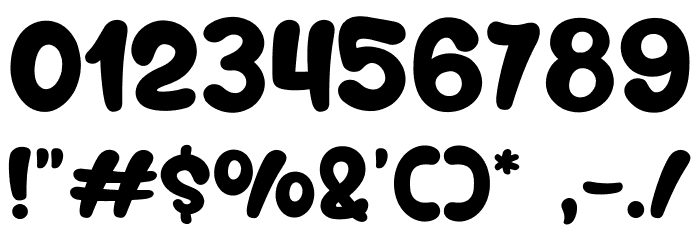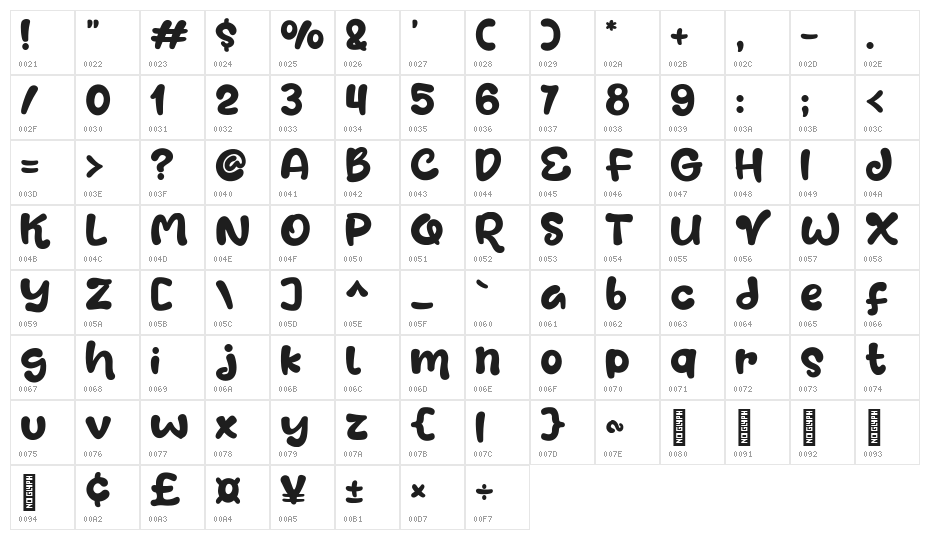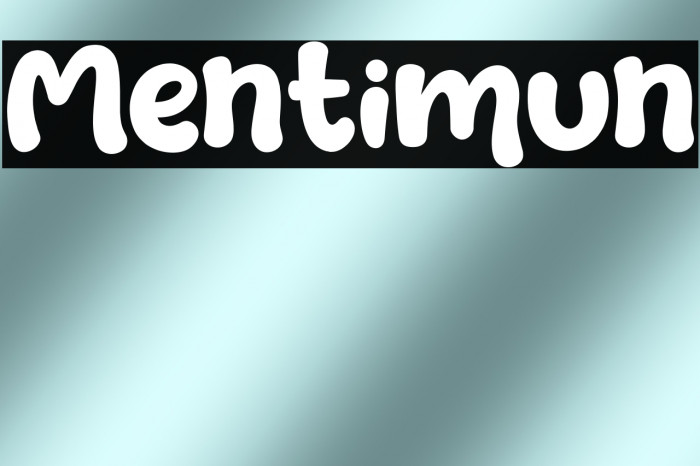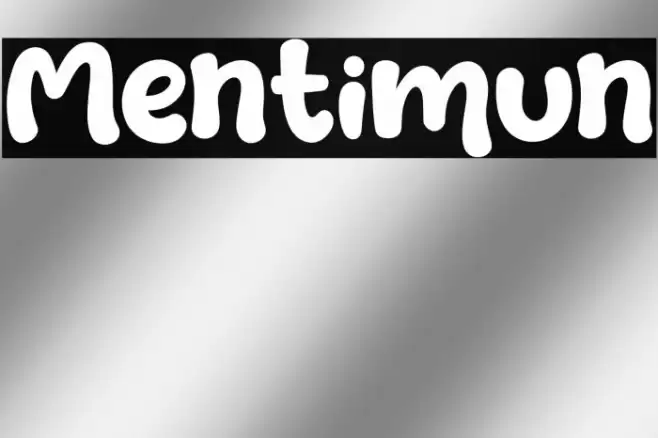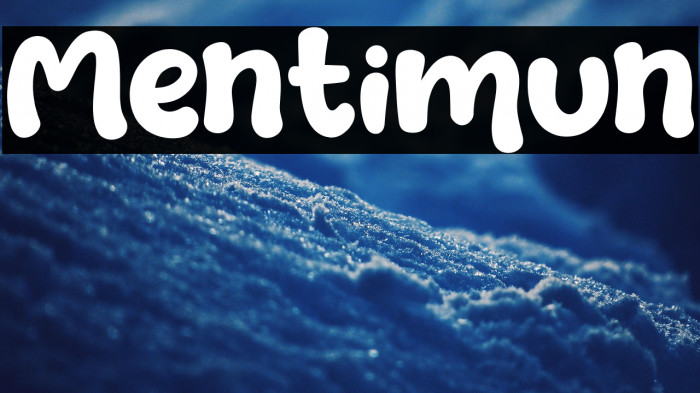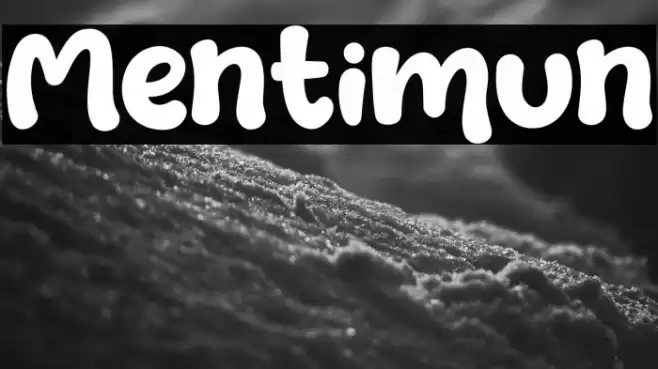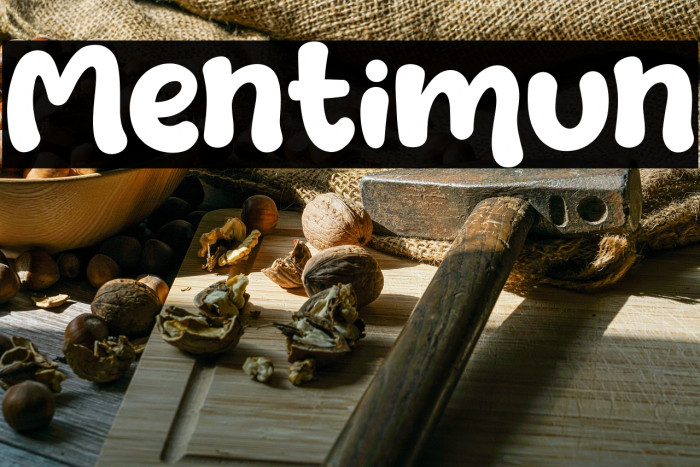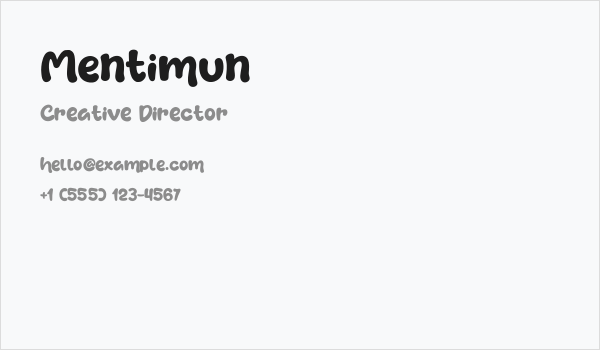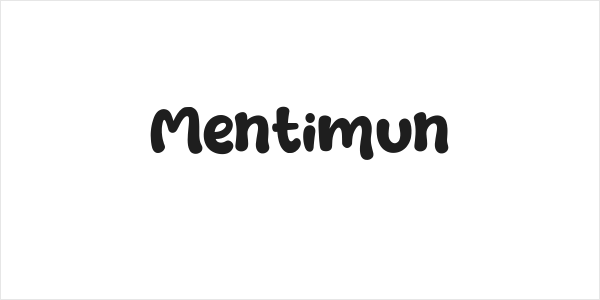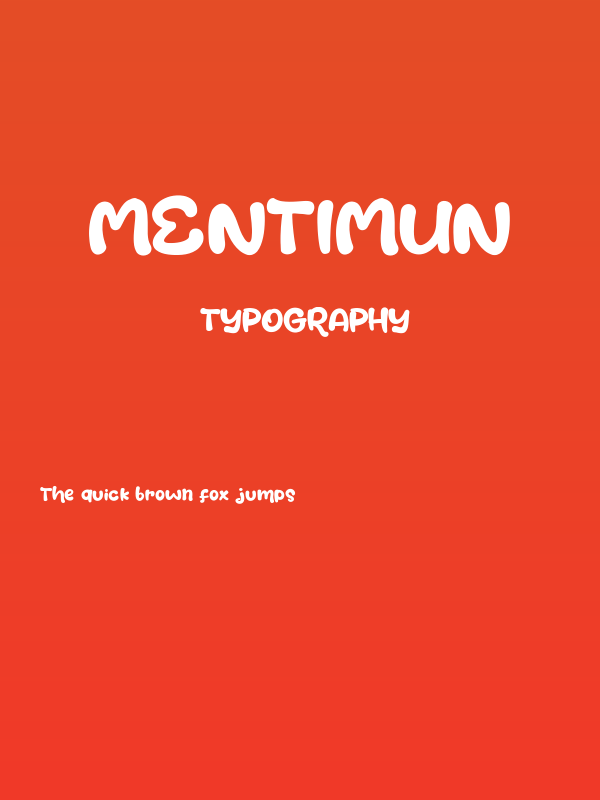
Mentimun Font
Mentimun Description
This playful and bold font features rounded, bubbly characters that exude a sense of fun and whimsy. The letters are thick and have a consistent stroke width, giving them a strong presence on the page. The rounded edges and smooth curves create a friendly and approachable look, making it ideal for informal and creative projects. The font includes both uppercase and lowercase letters, numbers, and a variety of special characters, ensuring versatility in design applications. Its unique style is perfect for capturing attention and conveying a sense of joy and creativity.
| Overall Style | Playful, Fun |
| Proposed Projects | Children's books, party invitations, playful branding, and creative posters. |